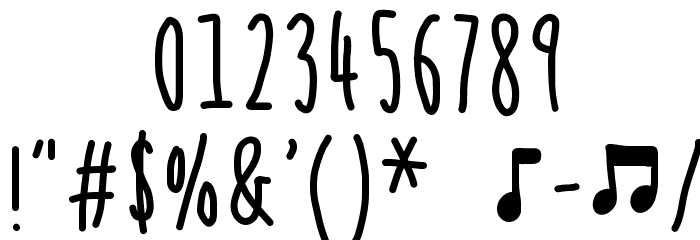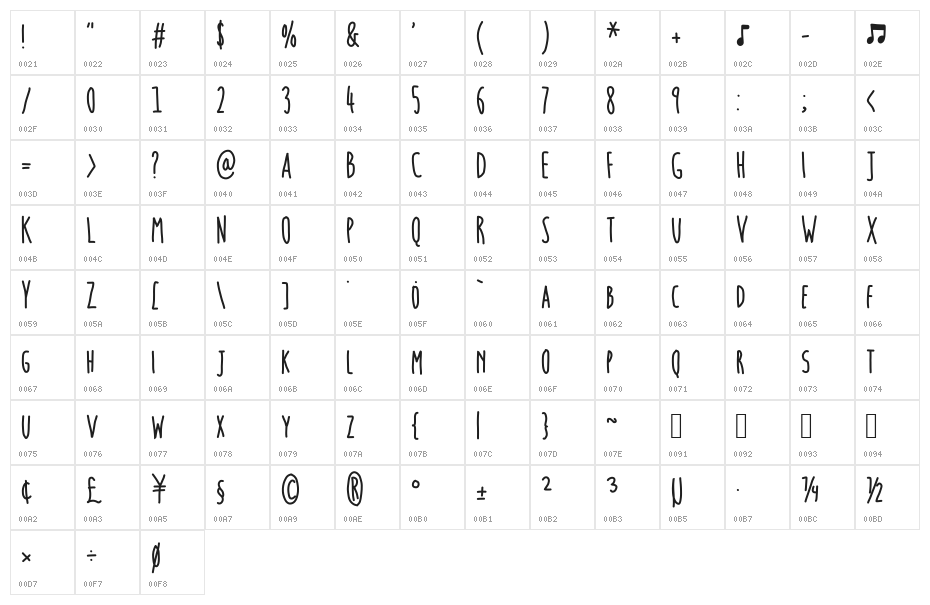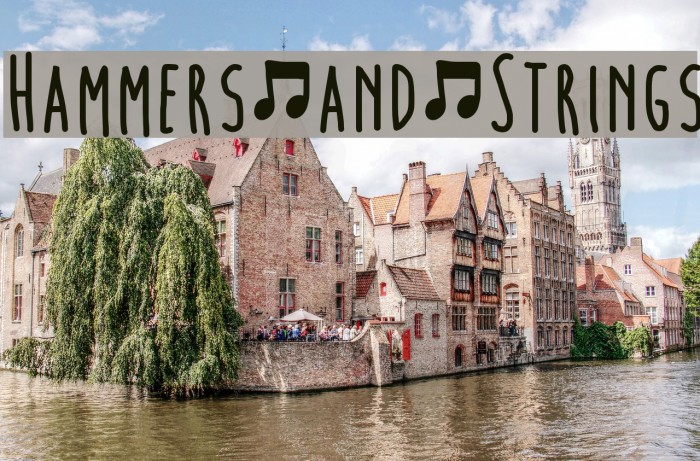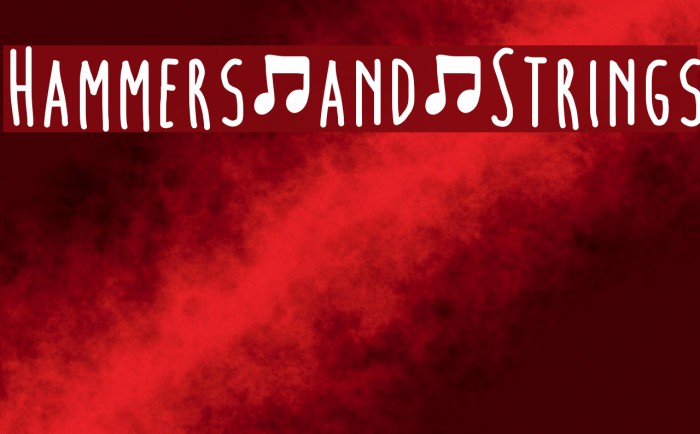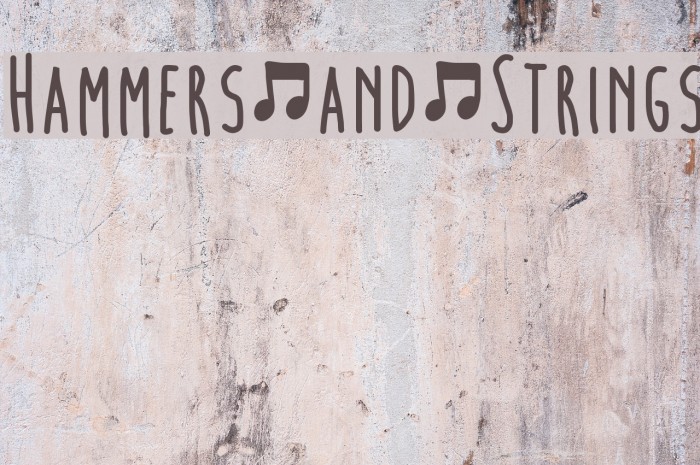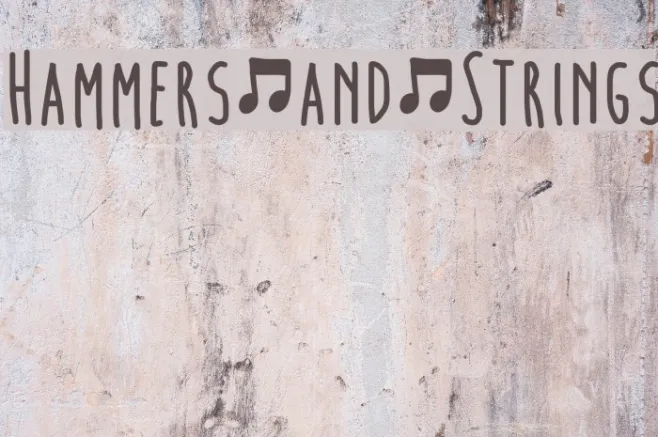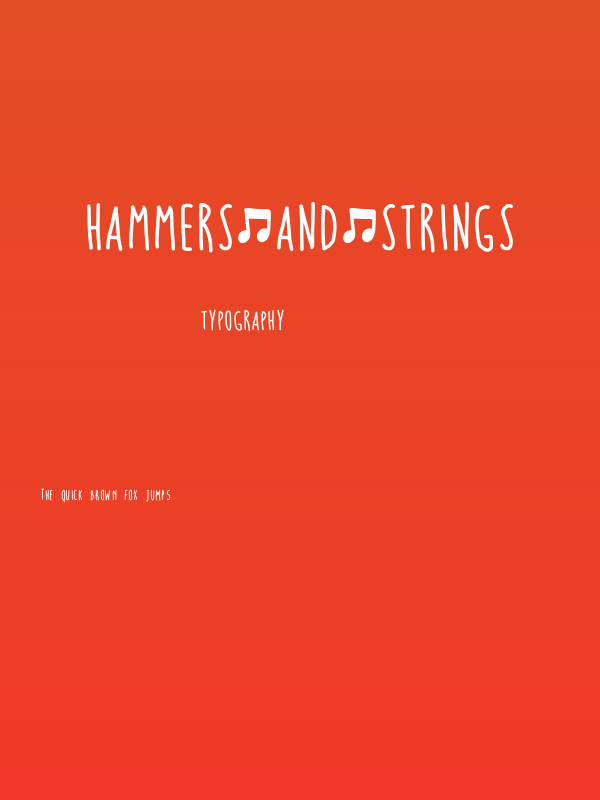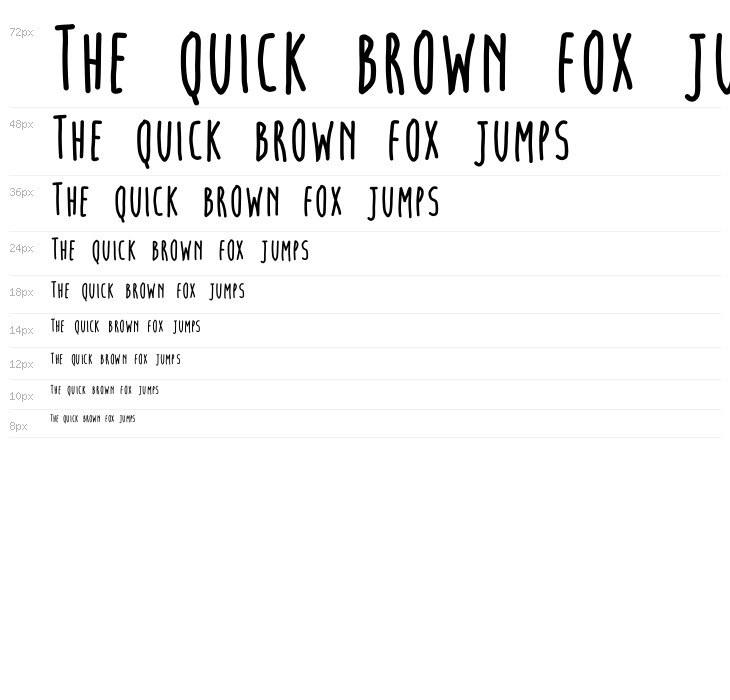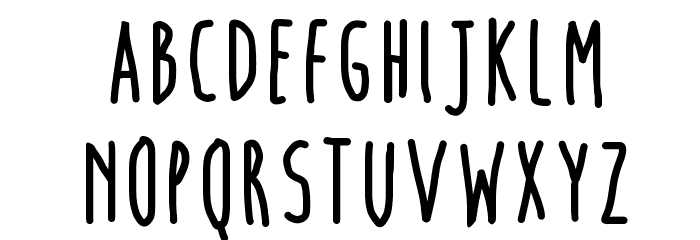
Hammers.and.Strings Font
Hammers.and.Strings Description
This font features a playful and informal handwritten style, characterized by its tall, narrow letters with slightly irregular strokes that give it a casual and friendly appearance. The uppercase and lowercase letters maintain a consistent height, contributing to a uniform look across text. The numerals are distinct and easily readable, matching the overall style of the alphabet. Special characters are included, adding versatility for various uses. The font's organic feel makes it suitable for projects that require a personal touch or a relaxed atmosphere.
| Proposed Projects | Ideal for greeting cards, invitations, children's books, and casual branding. |